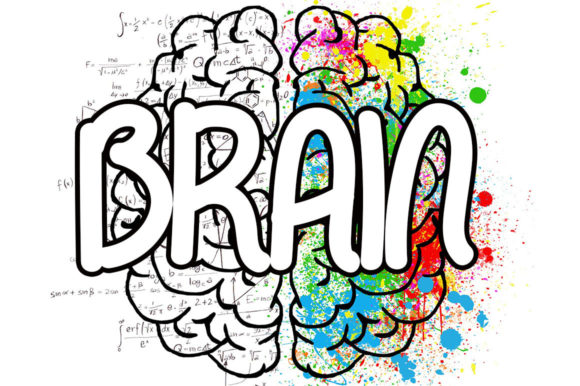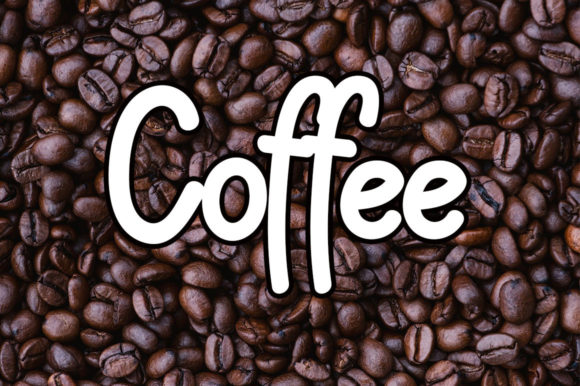
Introducing Creative Design Font: Elevate Your Designs with Elegance and Flair
Are you on the hunt for a font that exudes elegance, sophistication, and a touch of whimsy? Look no further than Creative Design Font, a stunning handwritten font that’s sure to capture your heart. With its simple yet flowing script, Creative Design Font is the perfect addition to any design project, from wedding invitations and stationery to social media posts and more.
Handwritten fonts have a way of adding a personal touch to any design. They evoke feelings of warmth, intimacy, and connection, making them perfect for projects where you want to create an emotional response. Creative Design Font takes this to the next level with its ravishing style, which is both elegant and approachable. Whether you’re a designer, crafter, or DIY enthusiast, this font is sure to inspire your creativity.
What Makes Creative Design Font So Special?
So, what sets Creative Design Font apart from other fonts out there? Here are just a few reasons why this font is a cut above the rest:
- Simple yet sophisticated: Creative Design Font has a simple, flowing script that’s both easy to read and visually stunning.
- Elegant and refined: This font exudes elegance and sophistication, making it perfect for high-end designs and projects.
- Versatile: Use Creative Design Font for everything from wedding invitations and stationery to social media posts and more.
- Easy to use: This font is incredibly easy to use, even for those with limited design experience.
With Creative Design Font, the design possibilities are endless. Here are just a few ideas to get you started:
- Wedding invitations: Create beautiful, one-of-a-kind wedding invitations that set the tone for the big day.
- Stationery: Add a touch of elegance to your stationery with Creative Design Font.
- Social media posts: Make your social media posts stand out with this stunning font.
- DIY projects: Use Creative Design Font to add a personal touch to your DIY projects, from crafts to home decor.
Tips for Using Creative Design Font
Here are a few tips for getting the most out of Creative Design Font:
- Experiment with different colors: Try pairing Creative Design Font with different colors to create a unique look.
- Play with font sizes: Experiment with different font sizes to add visual interest to your design.
- Add embellishments: Consider adding embellishments, such as flowers or leaves, to give your design an extra touch of elegance.
Creative Design Font is a beautiful, elegant handwritten font that’s sure to elevate your designs to the next level. With its simple yet flowing script, this font is perfect for a wide range of projects, from wedding invitations and stationery to social media posts and more. Whether you’re a designer, crafter, or DIY enthusiast, Creative Design Font is a must-have addition to your font collection.